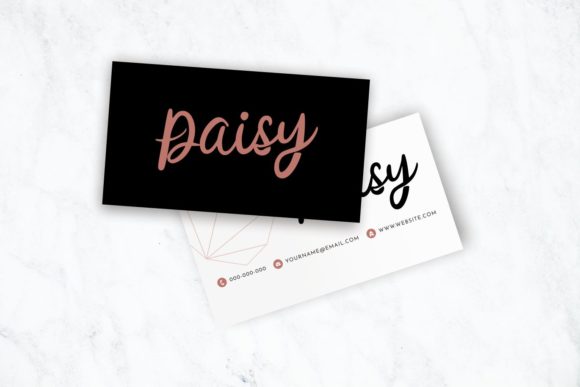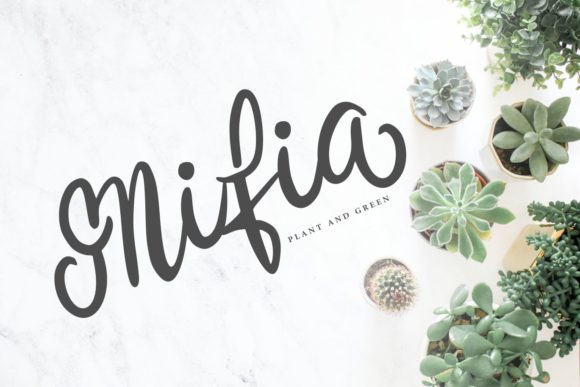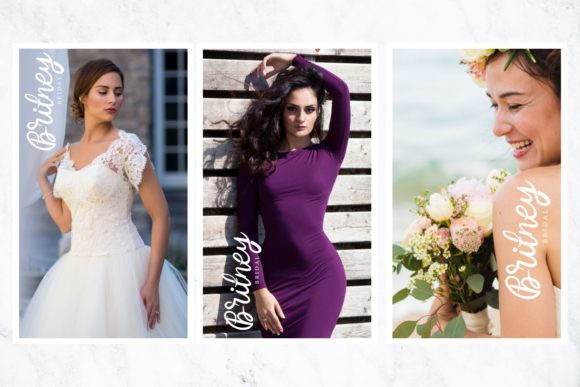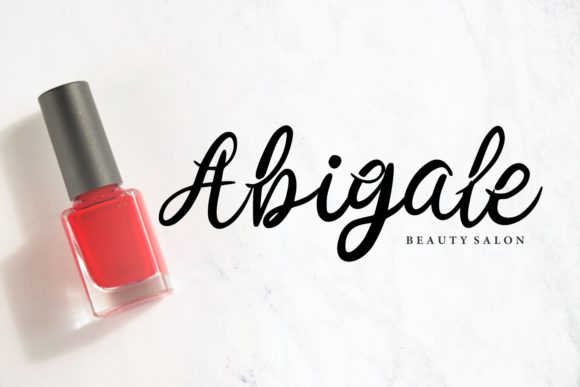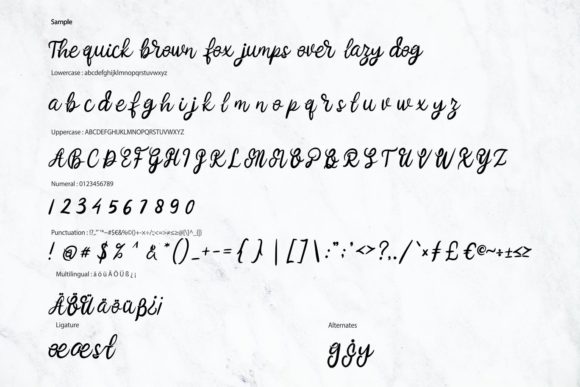
The Enofive Font: Elevating Designs with Elegant Flair
A First Impression: What Makes Enofive Stand Out
The Enofive Font updates classic calligraphy with a modern spin, making it an organic and incredibly harmonious script that can turn any design project into a true standout! Its unique blend of traditional and contemporary elements makes it perfect for designers, crafters, and creative hobbyists looking to add a touch of elegance to their work.
So, what makes Enofive so special? Here are a few things I love about this font:
- ✨ Elegant and Refined: Enofive boasts a sophisticated, high-end feel that’s perfect for luxury brands, wedding designs, and high-end product packaging.
- ✅ Versatile: This font is incredibly versatile, suitable for a wide range of design projects, from digital to print.
- 💫 Unique Personality: Enofive has a distinct character that sets it apart from more traditional script fonts.
Of course, no font is perfect, and Enofive has a few minor quirks:
- 🤔 Legibility at Small Sizes: While Enofive is stunning at larger sizes, it can become a bit tricky to read at smaller sizes (e.g., below 10pt). ⚠️
- ⚠️ Some Limited Glyphs: While Enofive has a wide range of glyphs, some users may find certain characters or symbols limited.
The Story Behind Enofive: Designer Inspiration
The Enofive Font was crafted with the goal of merging traditional calligraphy with modern design sensibilities. The designer sought to create a font that feels both nostalgic and fresh, perfect for projects that require a touch of sophistication and whimsy. Inspired by classic scripts and modern typography trends, Enofive is the result of meticulous craftsmanship and attention to detail.
| What makes Enofive unique? | Enofive’s unique blend of classic calligraphy and modern design elements sets it apart from other script fonts. |
| Does Enofive support OpenType features? | Yes, Enofive supports OpenType features, allowing for advanced typographic control. |
With its elegant design, versatility, and modern twist on classic calligraphy, the Enofive Font is sure to elevate your design projects and make them stand out.